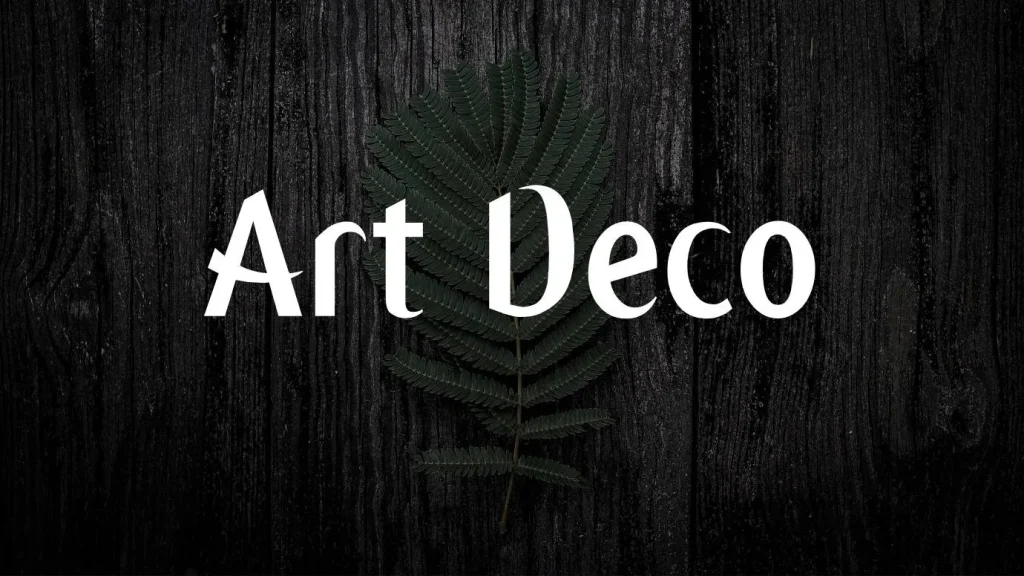
Art Deco Font Free Download
The Art Deco Font has special letters with an elegant look that are very useful for designers to create content. Because of the strong and fancy characters, it is often used for titles and headlines.
Unique designs and thin corners can be created with this stunning piece. The design is very stylish of this font.
StyleFancy